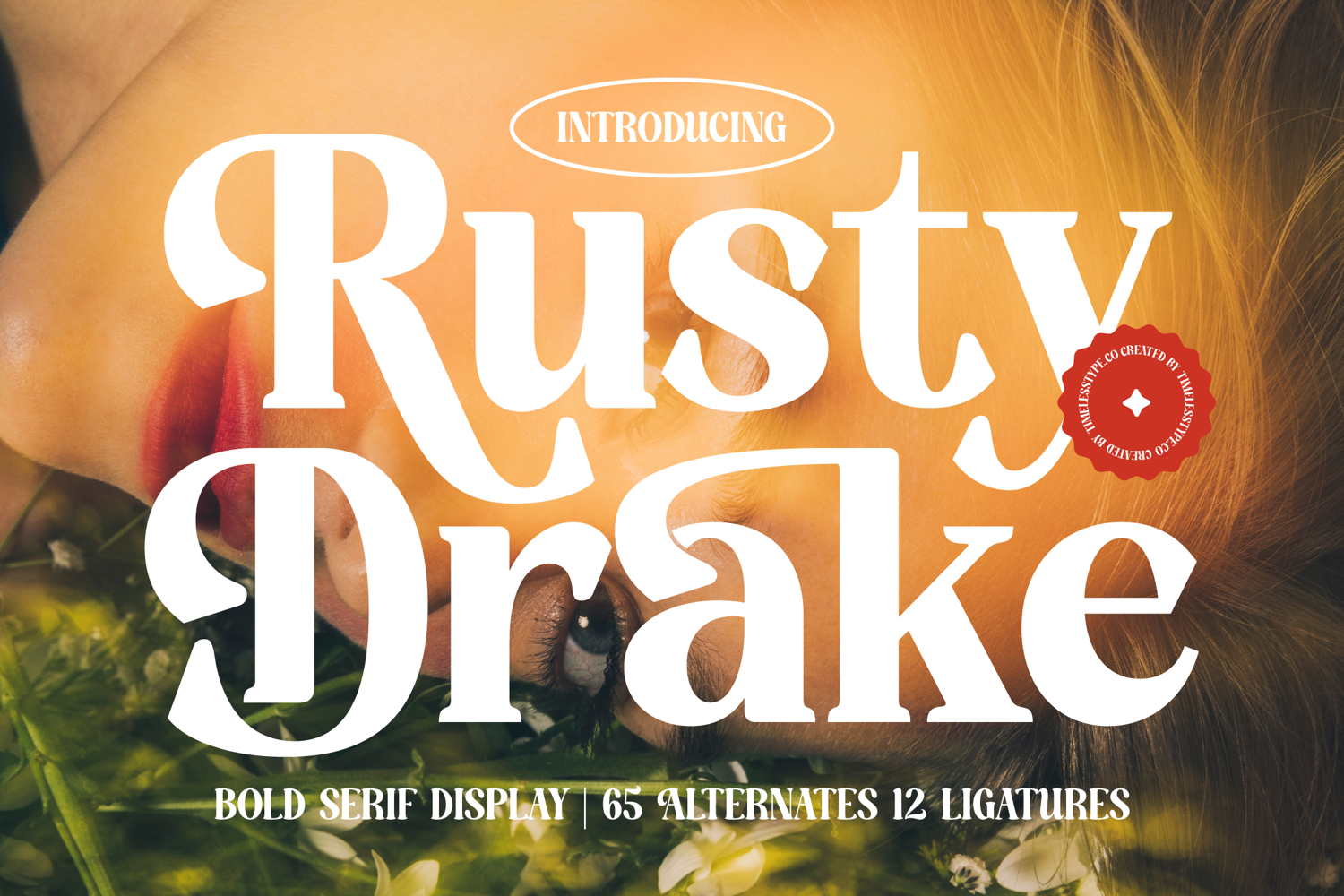
Rusty Drake - Bold Serif Display
Rusty Drake
Rusty Drake Italic
Rusty Drake - Bold Serif Display
Unleash the power of captivating typography with Font Rusty Drake - Bold Serif Display Serif Display, an exquisite typeface designed to command attention. This bold serif display font exudes a remarkable blend of vintage elegance and contemporary sophistication, characterized by its high-contrast strokes and distinctive, beautifully sculpted serifs. It’s a versatile choice for projects demanding both gravitas and a unique aesthetic, immediately elevating any design with its inherent charm and powerful presence.
Crafted for discerning designers, Font Rusty Drake - Bold Serif Display delivers a sophisticated statement that is both memorable and visually arresting. Its unique letterforms make it perfect for luxury branding, high-end editorial design, elegant packaging, and impactful logotypes. Whether gracing the covers of fashion magazines or defining an exclusive product line, this font ensures your message is conveyed with undeniable authority and refined taste, leaving a lasting impression on your audience.
Expand your creative horizons without boundaries. With its extensive multilingual support, Font Rusty Drake - Bold Serif Display adapts seamlessly across global markets, making it incredibly versatile for international projects. This comprehensive language support ensures your brand’s voice maintains its distinctive character and appeal, regardless of geographical reach, solidifying its position as an indispensable asset for designers with a global vision.